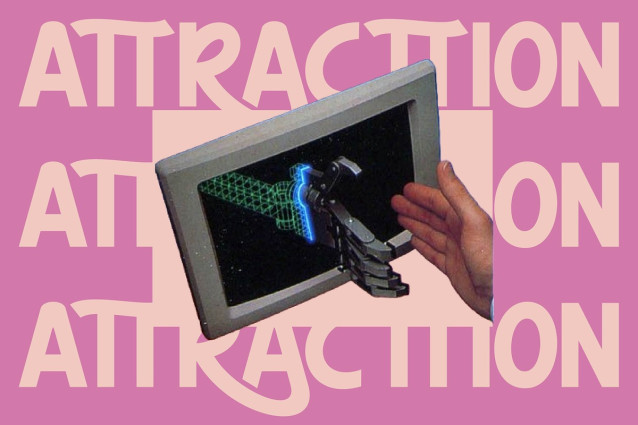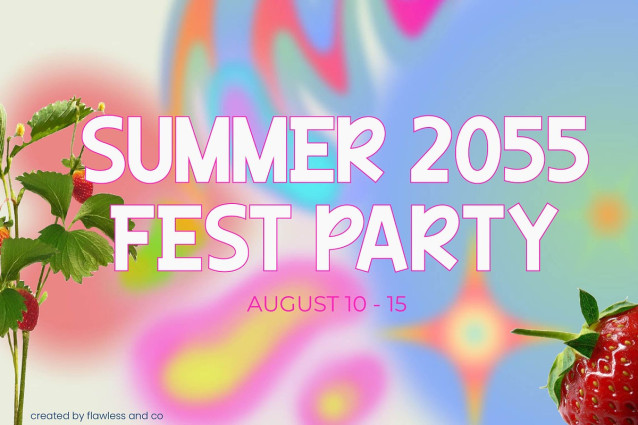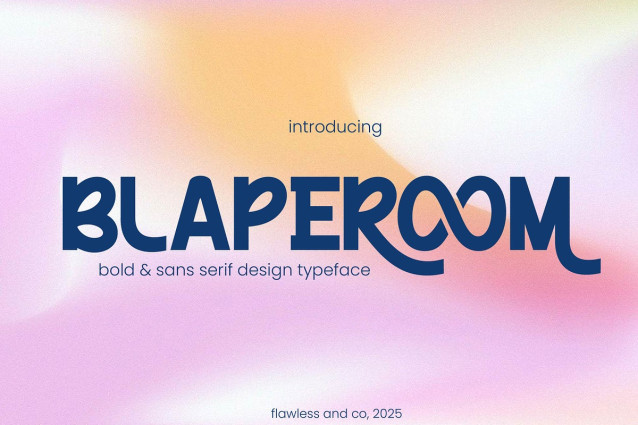
Blaperoom Font
Blaperoom Font is a bold sans serif font that combines modern strength with clean simplicity. With its strong lines, geometric structure, and bold presence, Blaperoom is made to bring impact and clarity to every design. Perfectly suited for branding, posters, editorial layouts, packaging, and even playful design themes, Blaperoom offers both versatility and character. Its bold, straightforward shapes provide excellent readability and make it a great choice for eye-catching compositions.Blaperoom also shines in kids-related projects. Its clean and chunky letterforms are easy to read and bring a fun, energetic vibe to children’s books, games, apparel, educational materials, and more—adding charm without losing structure.
Each letter is crafted to deliver a modern, confident look while still feeling approachable and dynamic. Whether you’re working on a bold brand concept or a cheerful design for kids, Blaperoom is ready to elevate your work with style and strength.